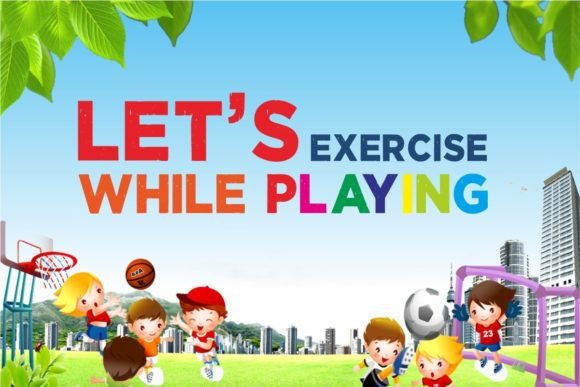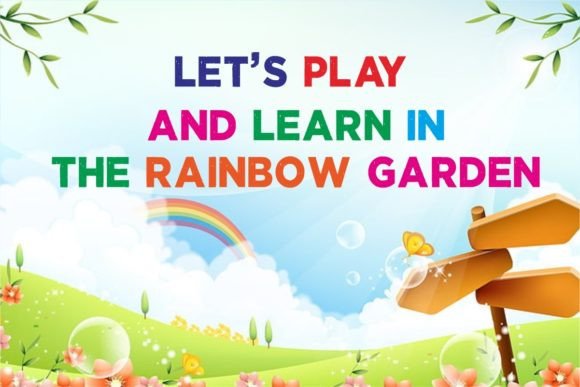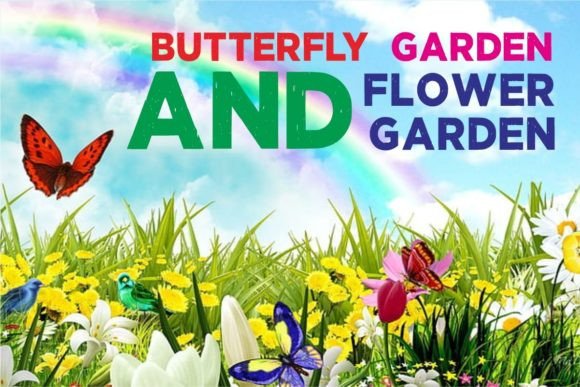
Introduction to Playing Font
Playing a childish, easy-to-read font display that reads aloud is the perfect design.
Whether youโ€™re using it for crafts, book covers, digital designs, or presentations, this font may become your favorite font, whatever the occasion .
Key Features of Playing Font
Why Choose Playing Font?
Playing Font offers exceptional quality and versatility, making it a valuable addition to your design toolkit. Whether you’re creating for personal projects or commercial use, Playing Font delivers professional results.